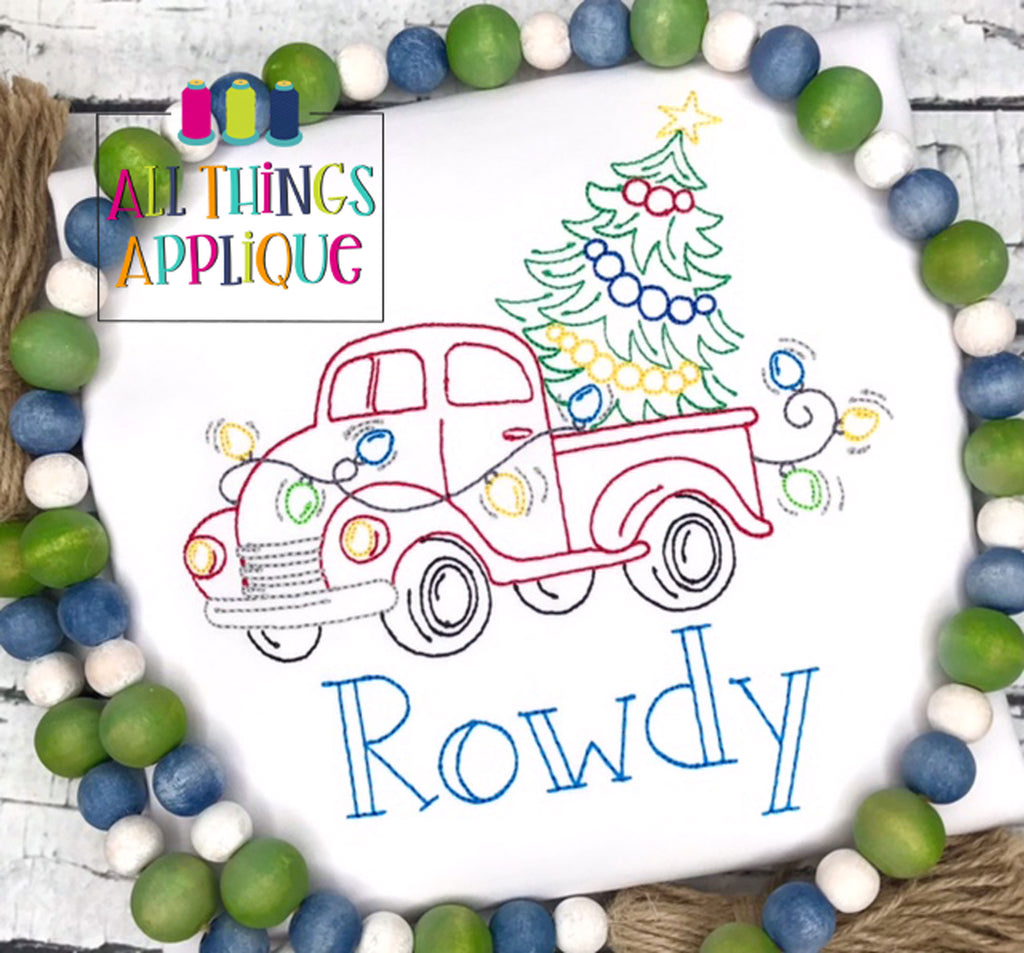
Classic Quick Stitch Embroidery Font
A classic quick stitch font perfect for boys and girls!
This font matches perfectly with our Hearts on a String font. You can use some letters from the Hearts on a String Font and some letters from the Classic Quick Stitch font to space out the hearts.